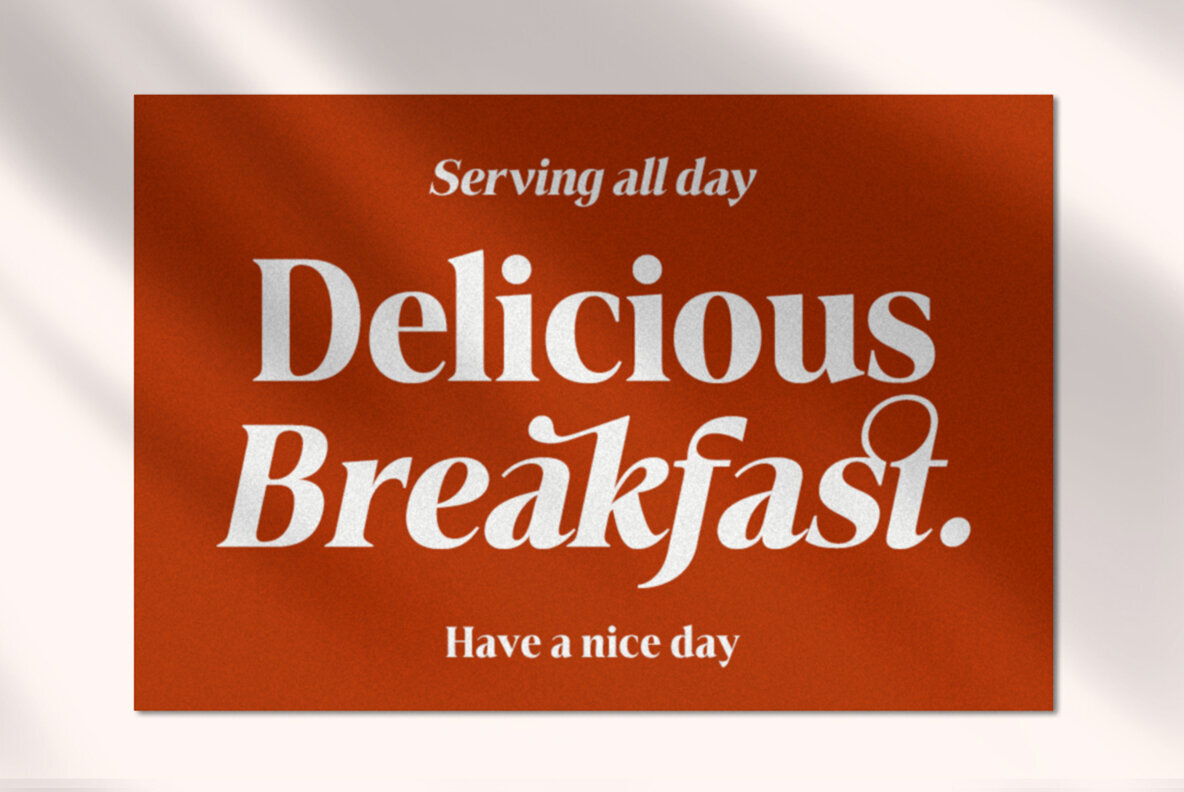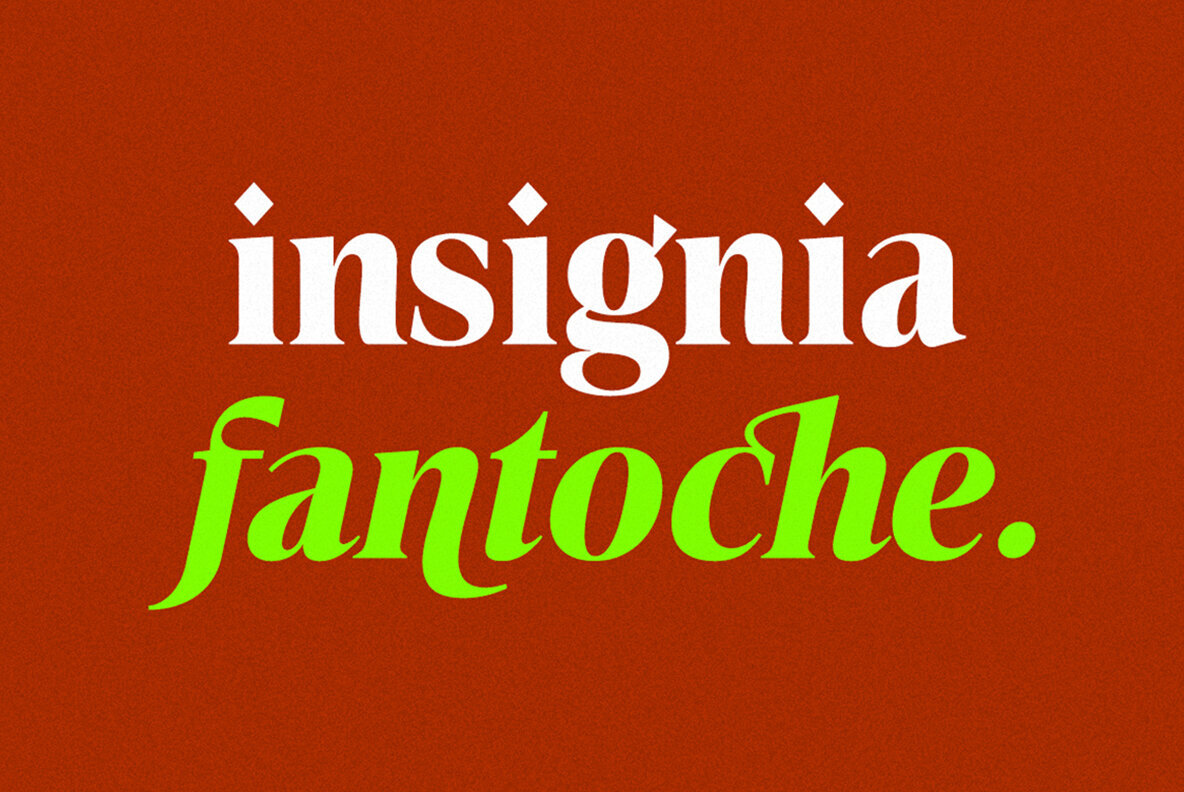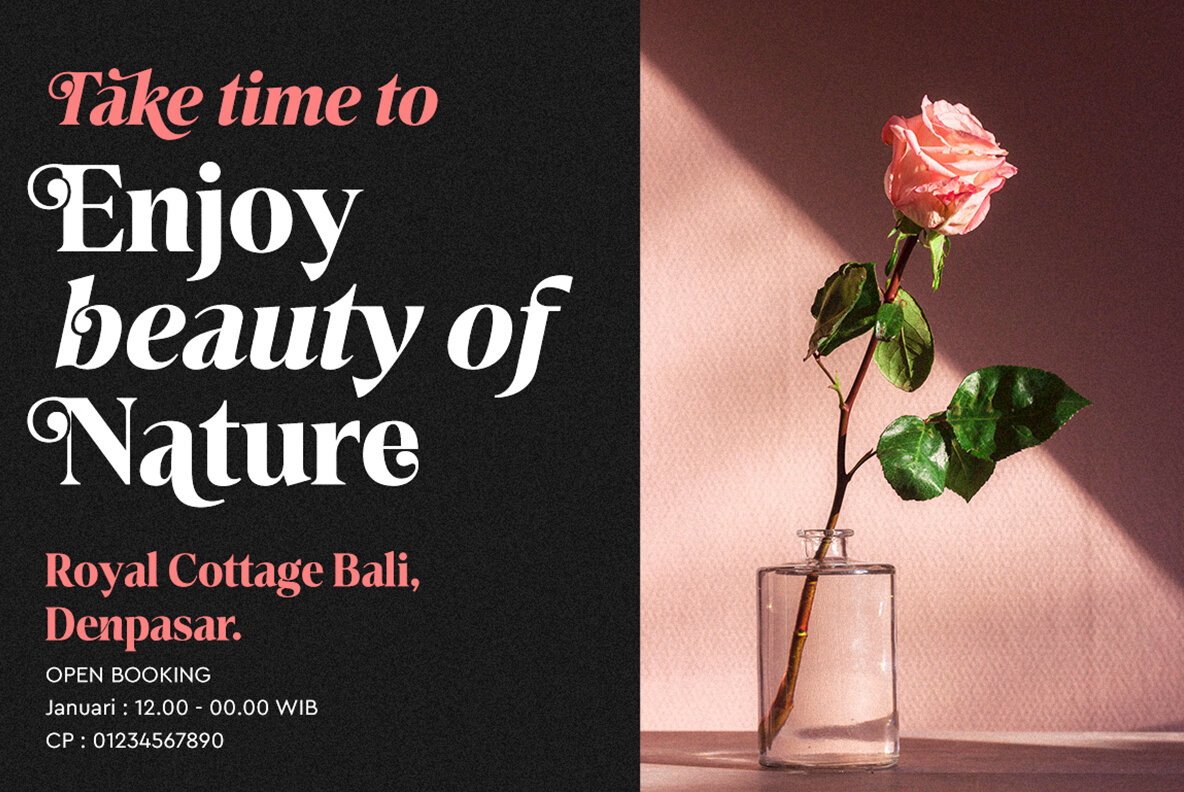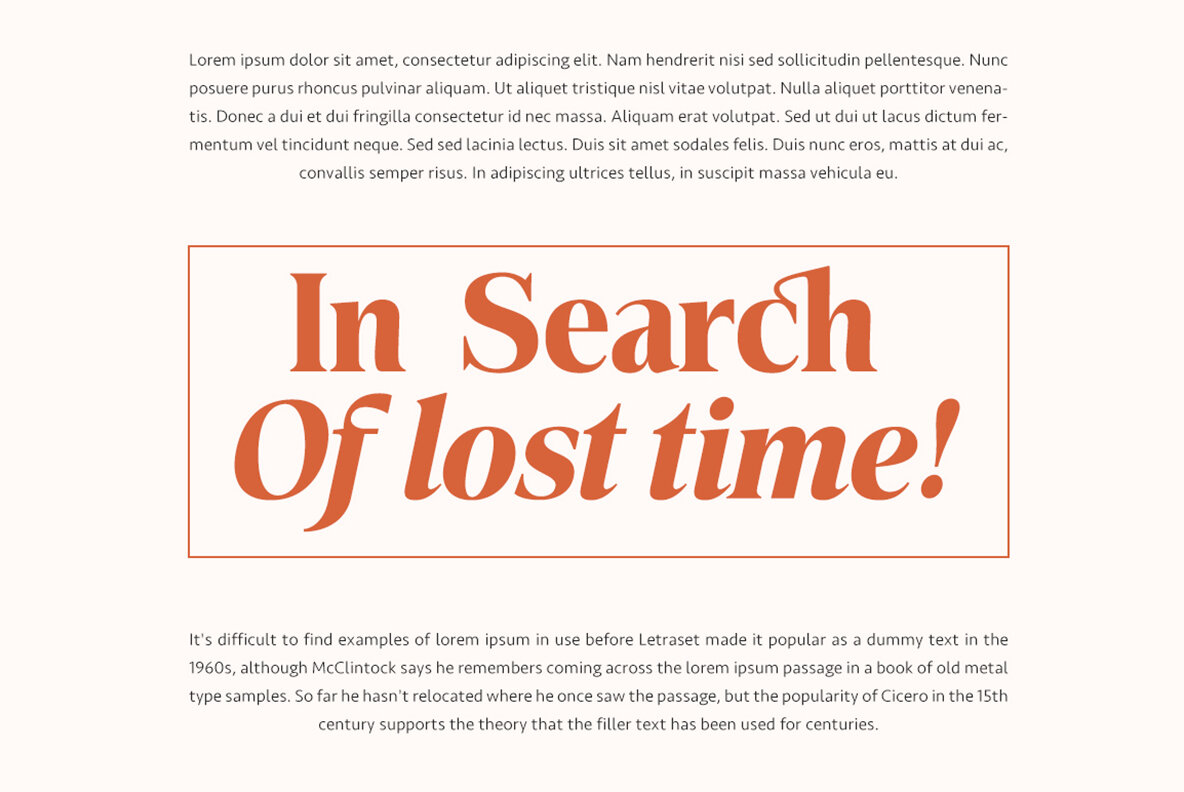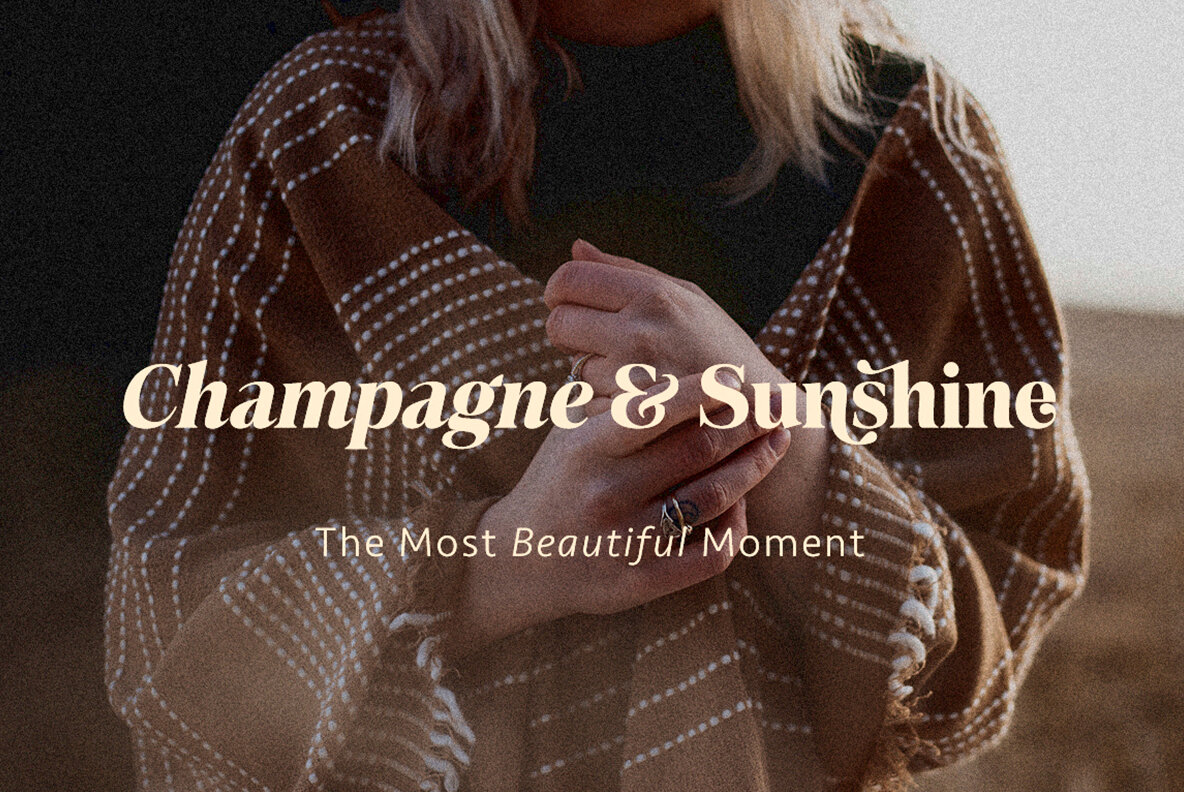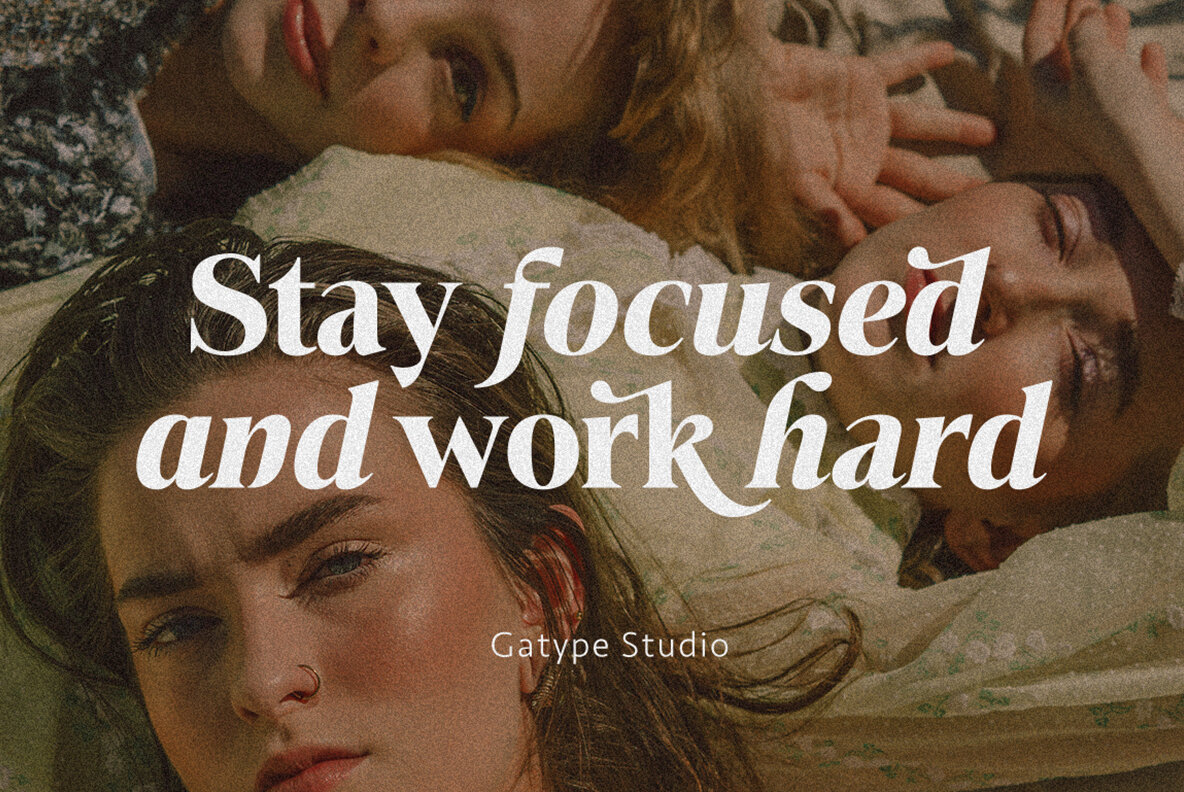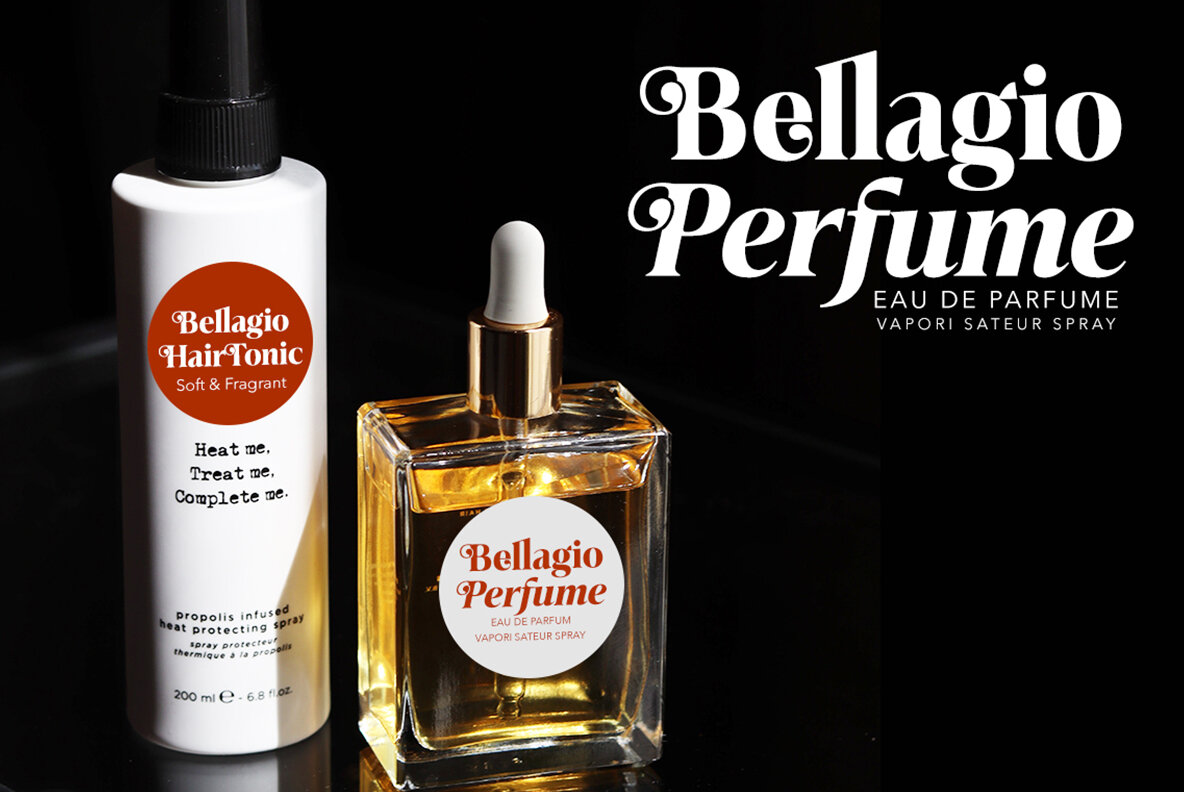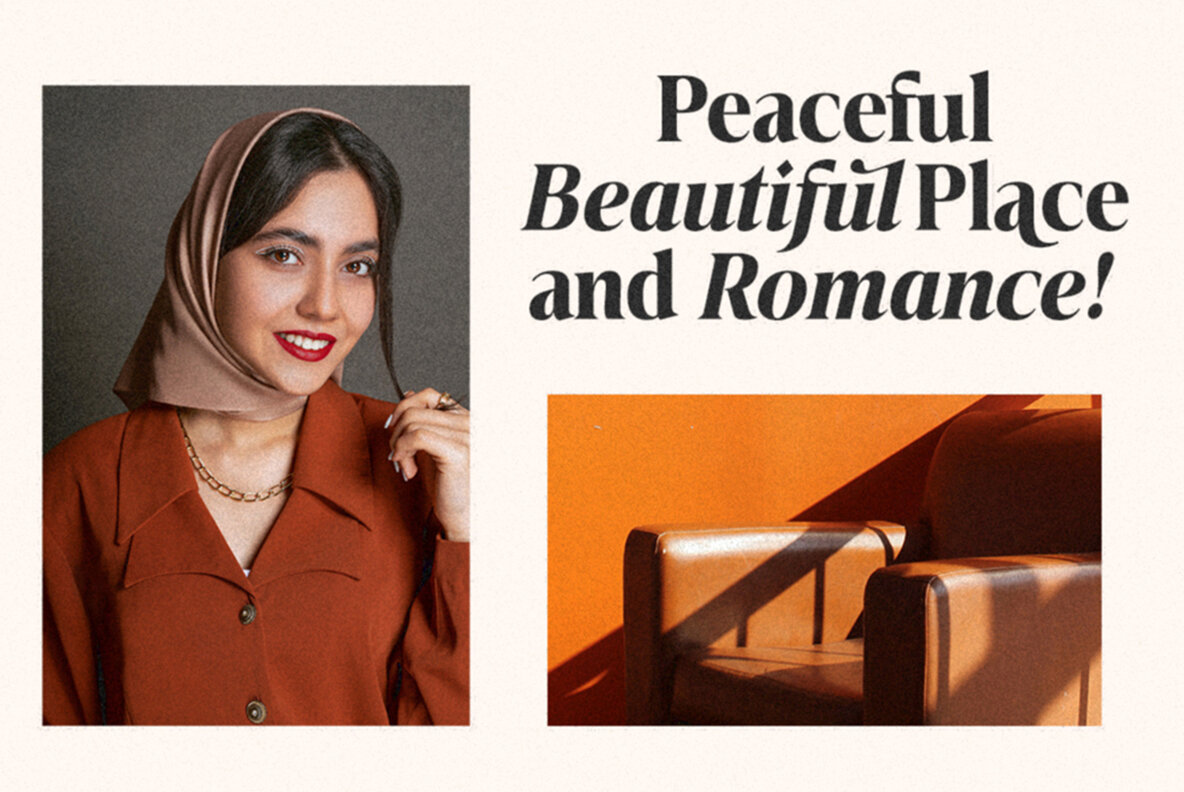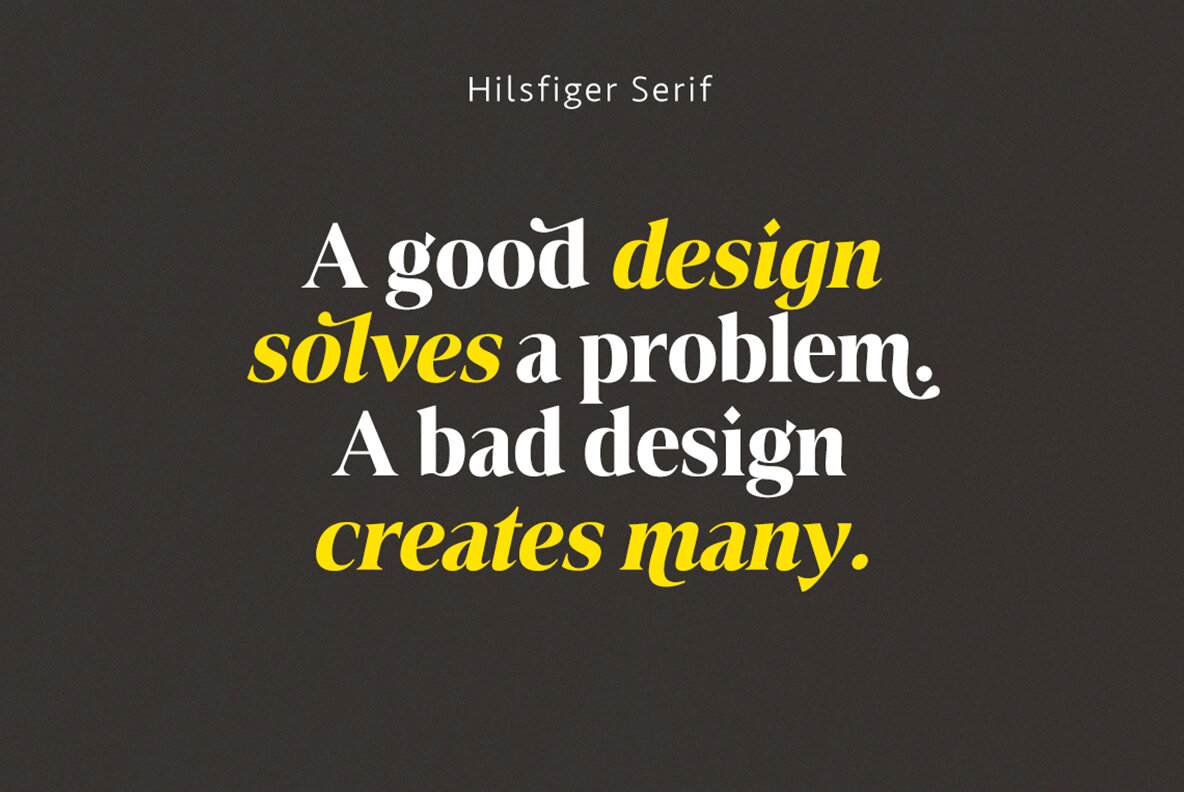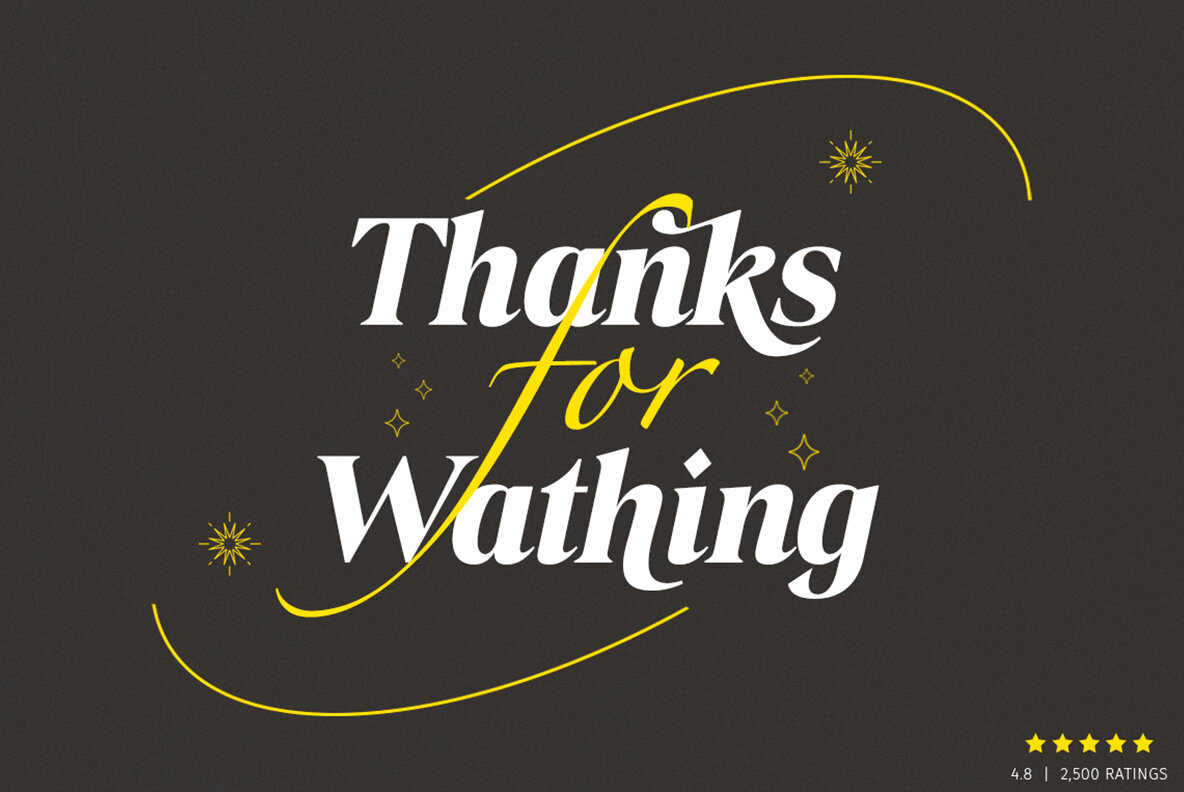
Hilsfiger Font
Hilsfiger is a unique, fun and versatile serif font that comes with Regular and Italic Fonts, OpenType and includes ligatures, alternatives, numbers, punctuation, and also supports other languages. So you can spice up any design you like. Hilsfiger I is a versatile serif font that works in both large and small sizes. This font is suitable for a wide variety of projects such as: headlines, logos, labels, branding projects, magazines, homeware designs, product packaging, mugs, quotes, posters, and more. Hilsfigeris is encoded with PUA Unicode, which allows full access to all additional characters without having to design any special software. Mac users can use Font Book, and Windows users can use Character Map to view and copy any additional characters to paste into your favorite text editor/app.